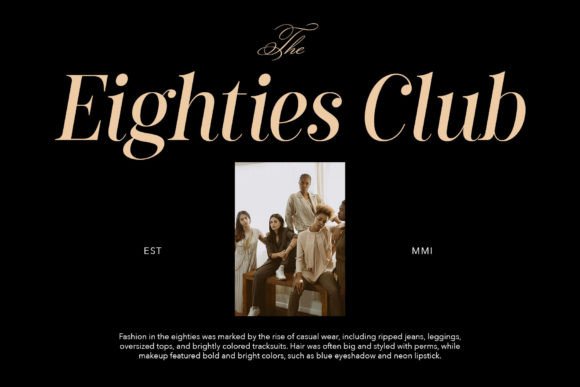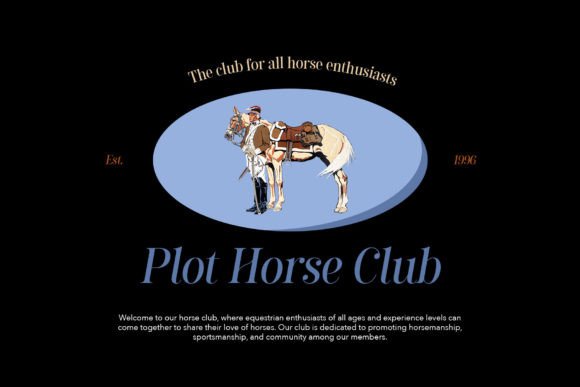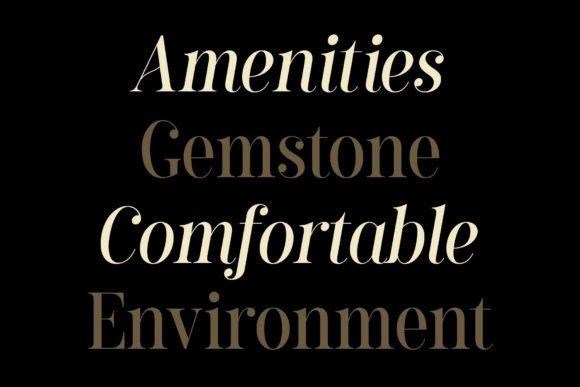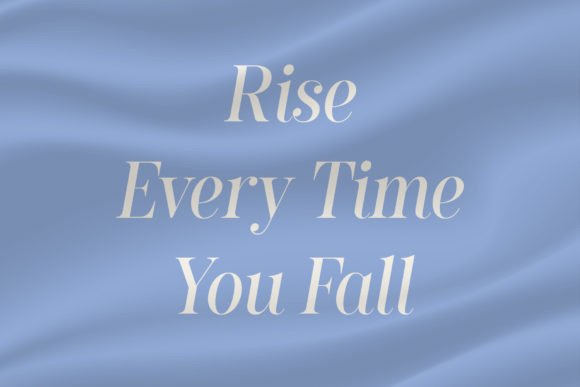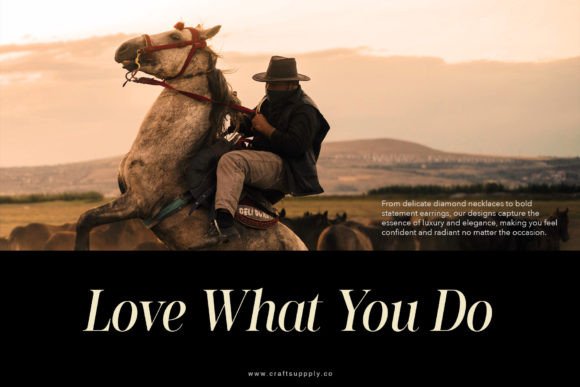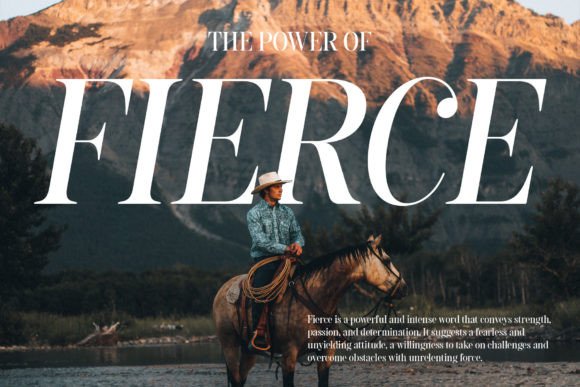
The Timeless Charm of Amaris Font: A Designer’s Delight
I’ll never forget the time I was working on a vintage-inspired branding project for a client, and I was struggling to find the perfect font to capture the essence of a bygone era. The client wanted something that would transport their audience to a time of classic style and sophistication, but I was coming up blank. That’s when I stumbled upon Amaris Font, and it was love at first sight! ✨
Amaris is the font that takes you back to the good old days. Its stylish, nostalgic design is perfect for vintage-inspired designs and retro branding. The bold serifs and classic proportions create a timeless look that will transport your audience to a bygone era of style and sophistication.
An Honest Review of Amaris Font
What I Love About Amaris Font
• ✅ Timeless design: Amaris Font has a classic look that never goes out of style.
• ✅ High legibility: The bold serifs and clear typography make it easy to read, even at small sizes.
• ✅ Versatile: Amaris Font is perfect for a wide range of design projects, from branding and advertising to packaging and signage.
• ✨ Nostalgic feel: The font’s vintage-inspired design is sure to evoke a sense of nostalgia in your audience.
While Amaris Font is an excellent choice for many design projects, there are a few things to keep in mind: 🤔
• ⚠️ Limited language support: Amaris Font may not support all languages, so be sure to check the font’s specifications before using it for a project.
• ⚠️ No condensed or expanded styles: Amaris Font is designed to be used at its standard proportions, so it may not be suitable for projects that require a more condensed or expanded font.
The Backstory of Amaris Font
Amaris Font was designed by a team of typographers who were inspired by the classic fonts of the past. They wanted to create a font that would evoke a sense of nostalgia and timelessness, while still being modern and versatile. The result is a font that is both elegant and refined, with a unique personality that sets it apart from other fonts.
Q: What is Amaris Font?
A: Amaris Font is a stylish and nostalgic font designed to evoke a sense of timelessness and classic style.
Q: What is Amaris Font used for?
A: Amaris Font is perfect for a wide range of design projects, from branding and advertising to packaging and signage.
Q: Is Amaris Font easy to read?
A: Yes, Amaris Font is designed to be highly legible, even at small sizes.